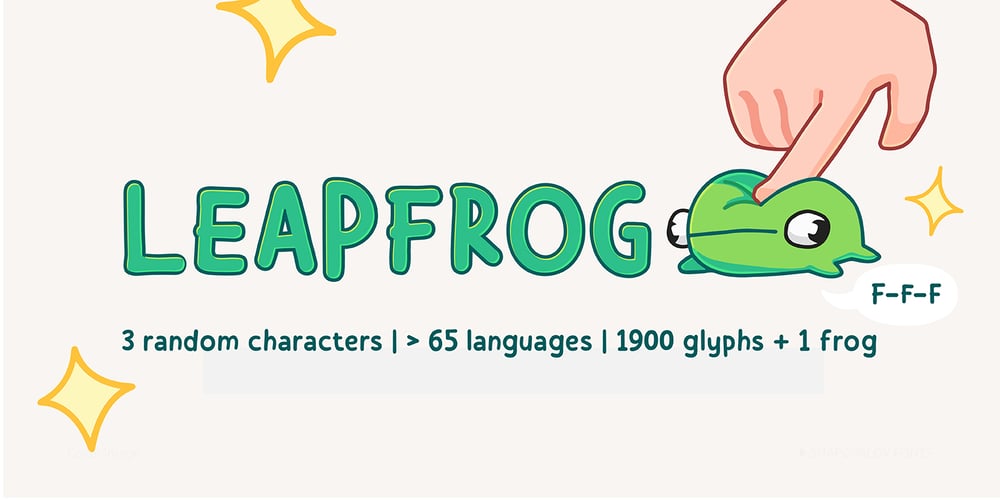
Leapfrog Font Family was designed by Sergey Shapovalov and published by Shapovalov Fonts. Leapfrog contains 1 styles and family package options. Leapfrog is a friendly and restless cursive font with no baseline containing 3 glyph variations per character. Each variant of the glyph is slightly different and is replaced randomly as you type, giving the impression of a unique handwriting. The font is suitable for logos, large headlines, posters, signs, children’s books and comics. Its character is cheerful, kind and playful due to the random set and rounded stroke endings. Leapfrog contains extended latin, cyrillic, ligatures, peace sign and frog, the total number of characters is 1902. It contains OpenType functions: liga, numr, dnom, calt, ss01, ss02. The font is also case sensitive, has fractions, currency signs, and arrows.